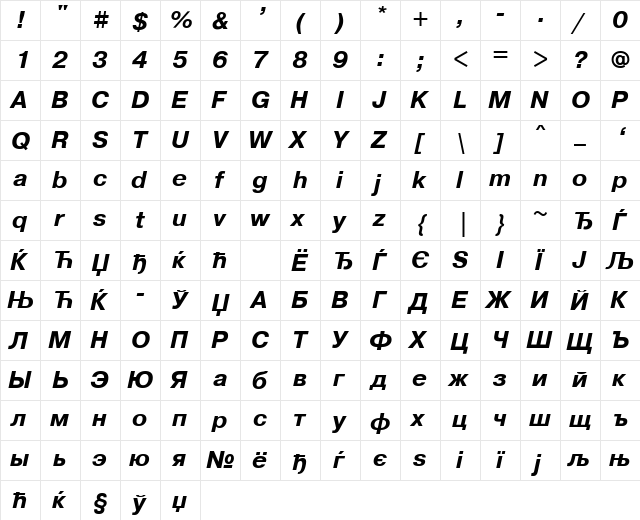
PragmaticaISOCTT BoldItalic
Design Context for PragmaticaISOCTT Typeface
PragmaticaISOCTT is a composed and adaptable typeface that performs quietly and consistently across a wide range of design contexts. Its italic angle brings a sense of urgency and motion to the letterforms. Its bold stroke weight gives it real presence on the page.